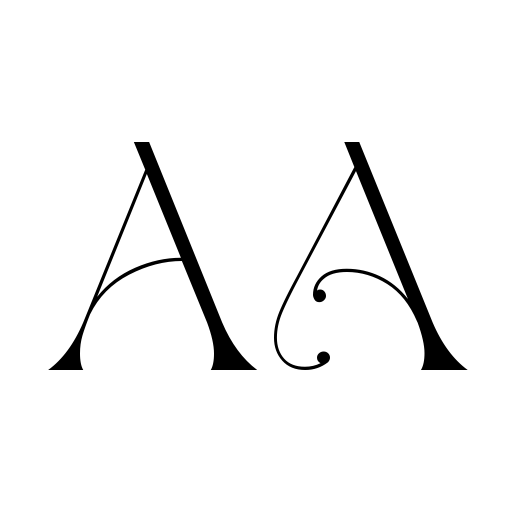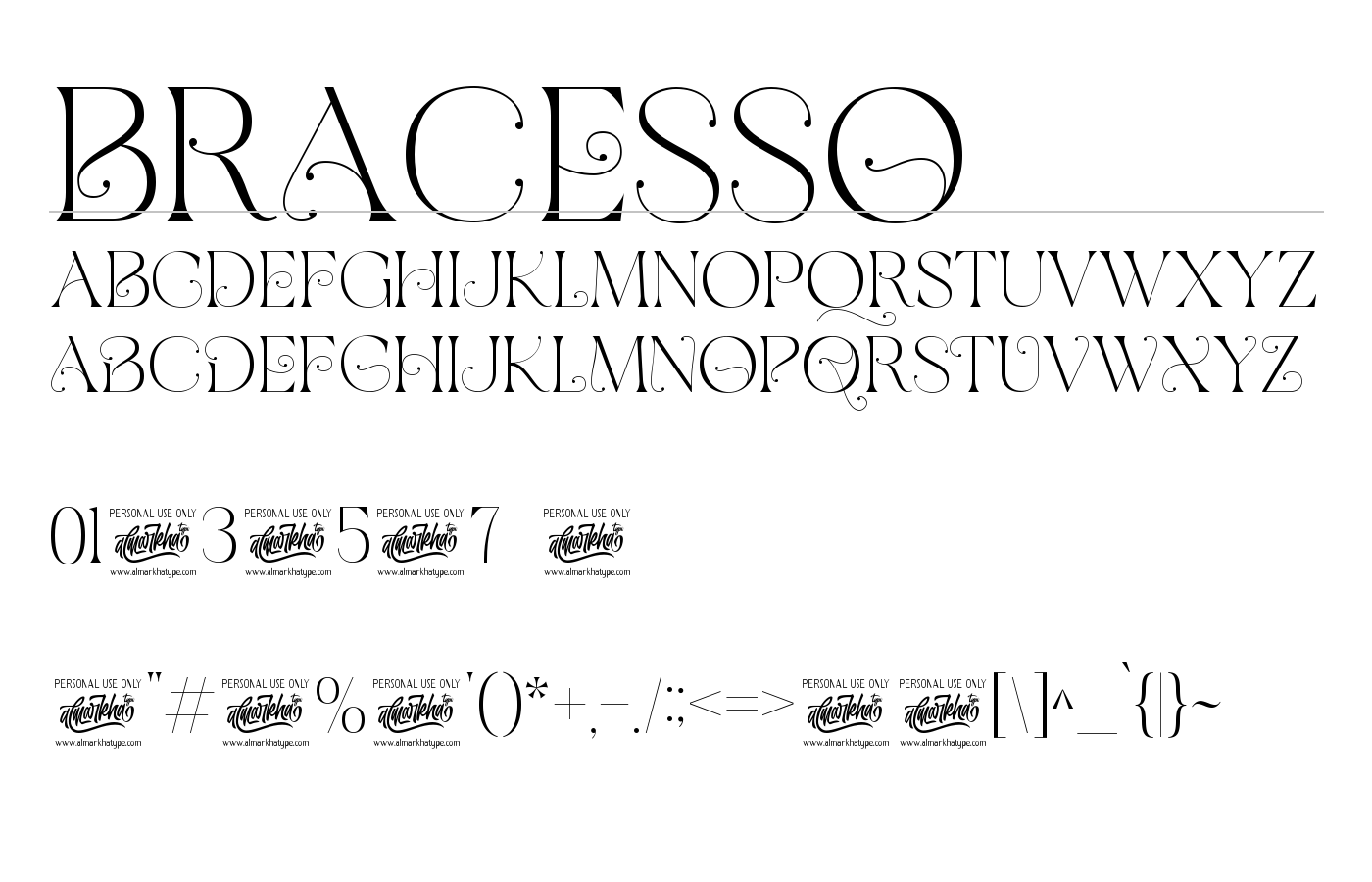
Bracesso is a stylish serif font featuring elegant, high-contrast strokes with delicate swirls and flourishes that add a luxurious, decorative flair. Its tall, slender letterforms and fine details make it perfect for upscale branding, invitations, and headlines where a sophisticated, artistic impression is desired. This font works well in settings that call for a refined, vintage-inspired look with a modern twist.
Bracesso Font
About Bracesso Font
| Font family | Bracesso Font |
| Designer | Almarkhatype 2020 - Abdul Malik - Adriansyah |